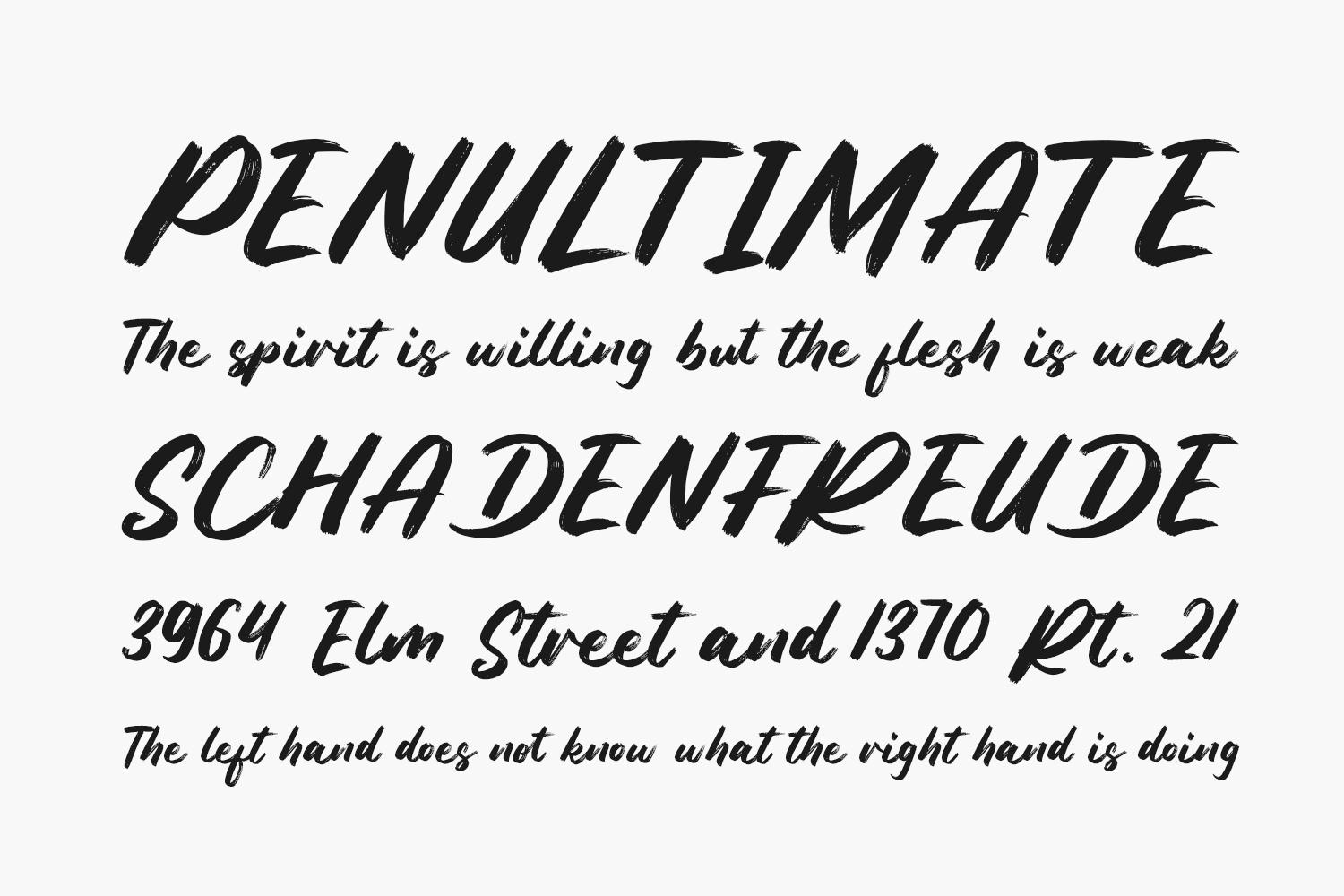
Matter Wild Free Font is an organic brushed handwritten font. No matter the topic, this font will be an incredible asset to your fonts’ library, as it has the potential to elevate any creation. Matter Wild Free Font was designed by FatmaStudio and is free for personal use only. Please purchase the full version for commercial use.